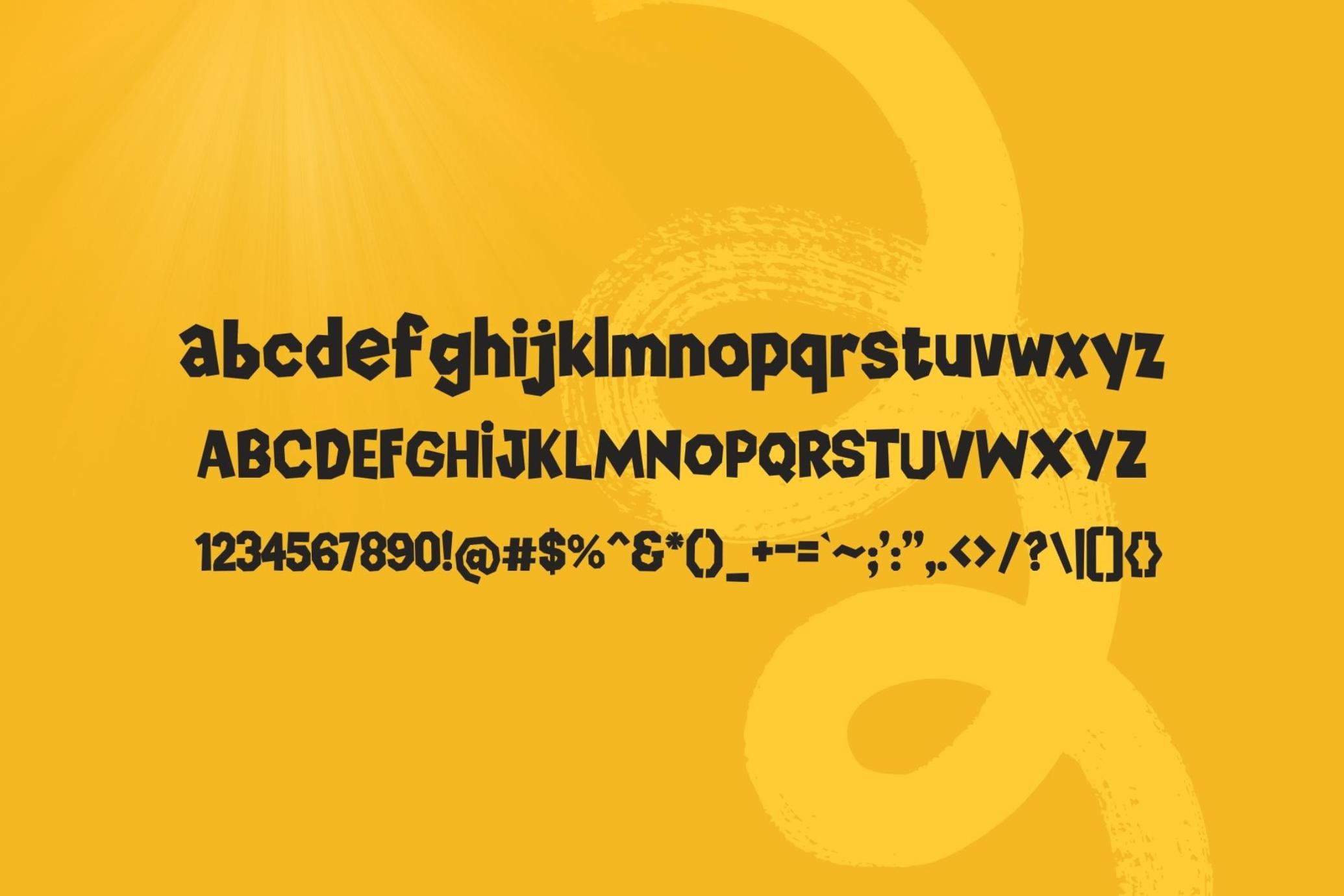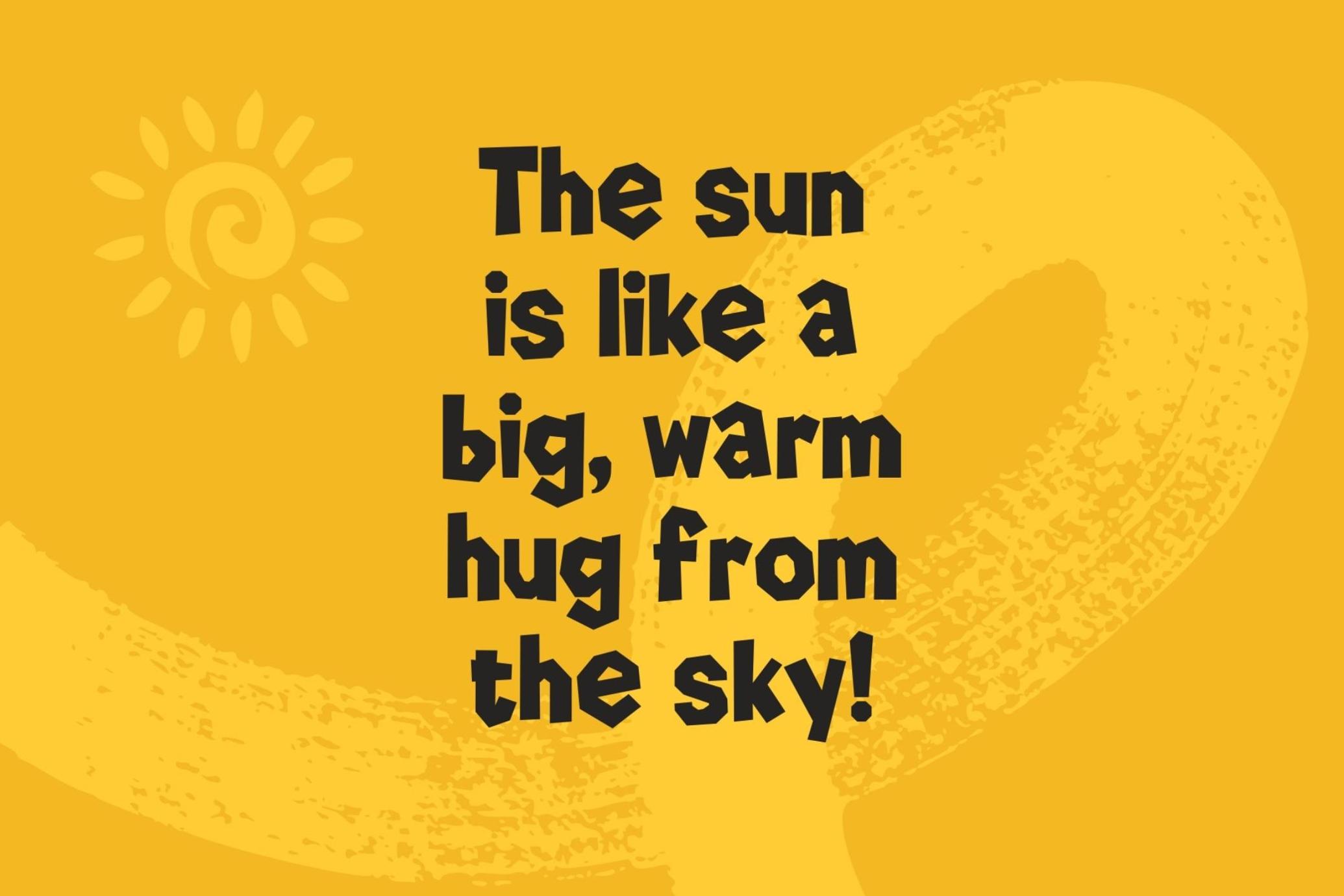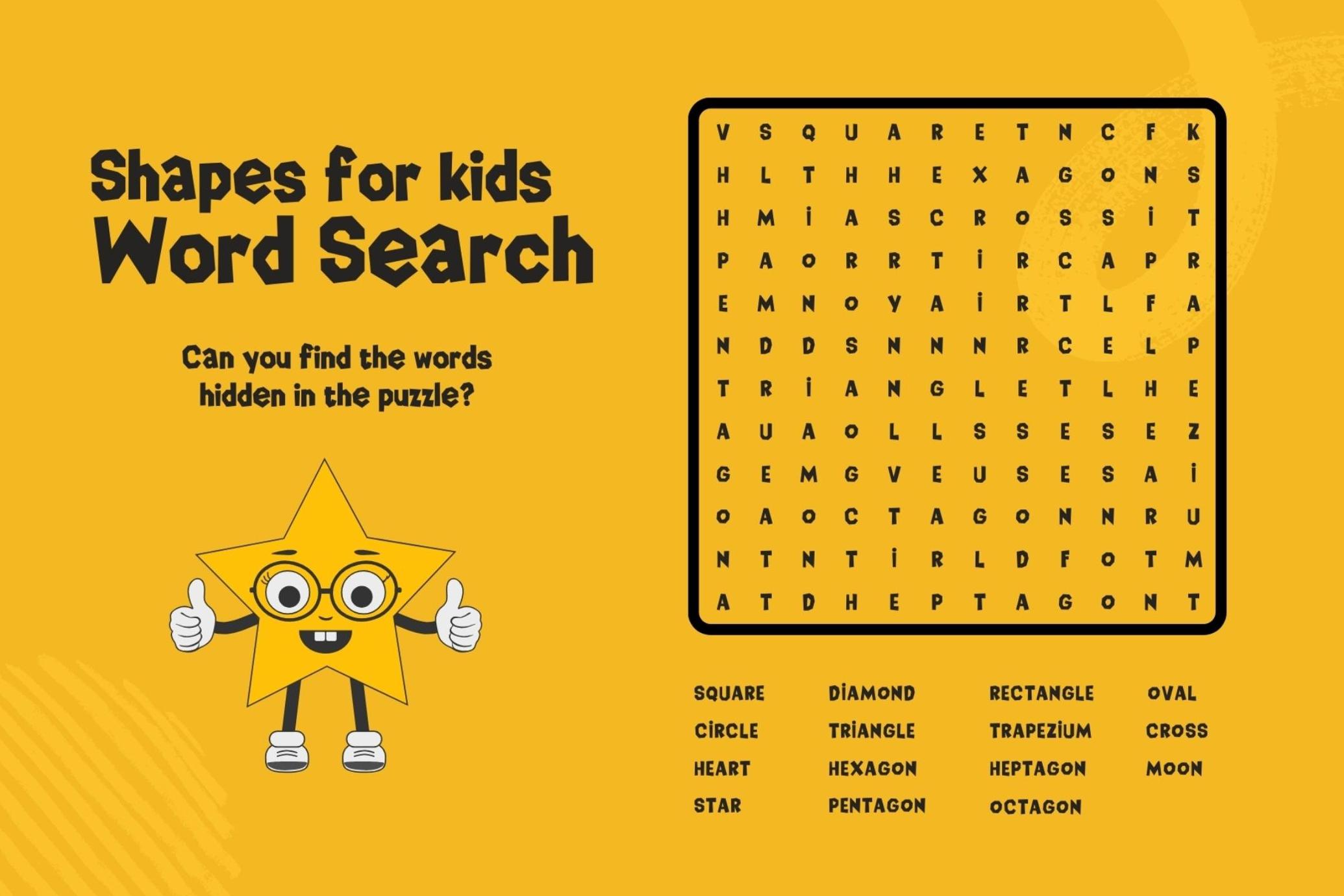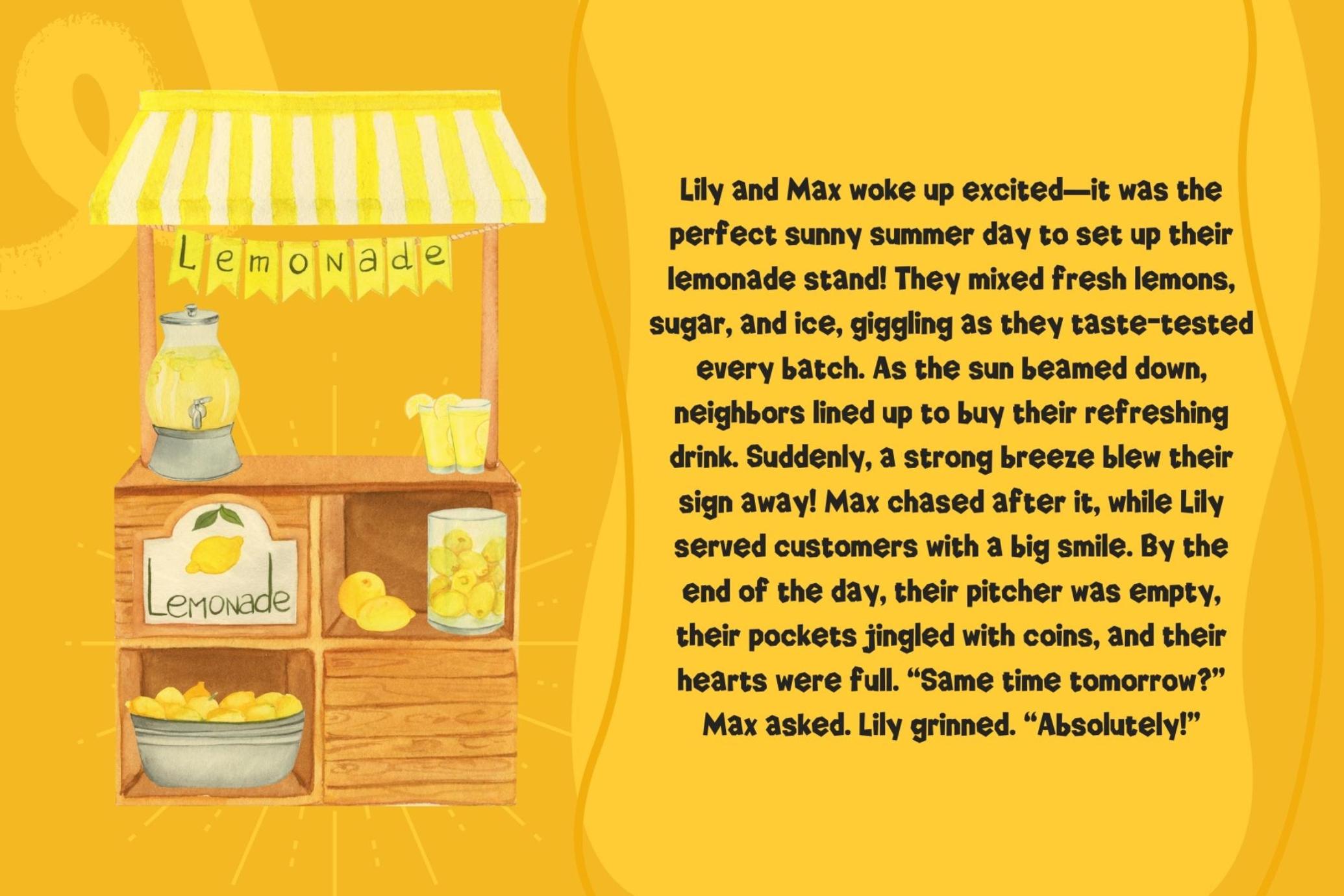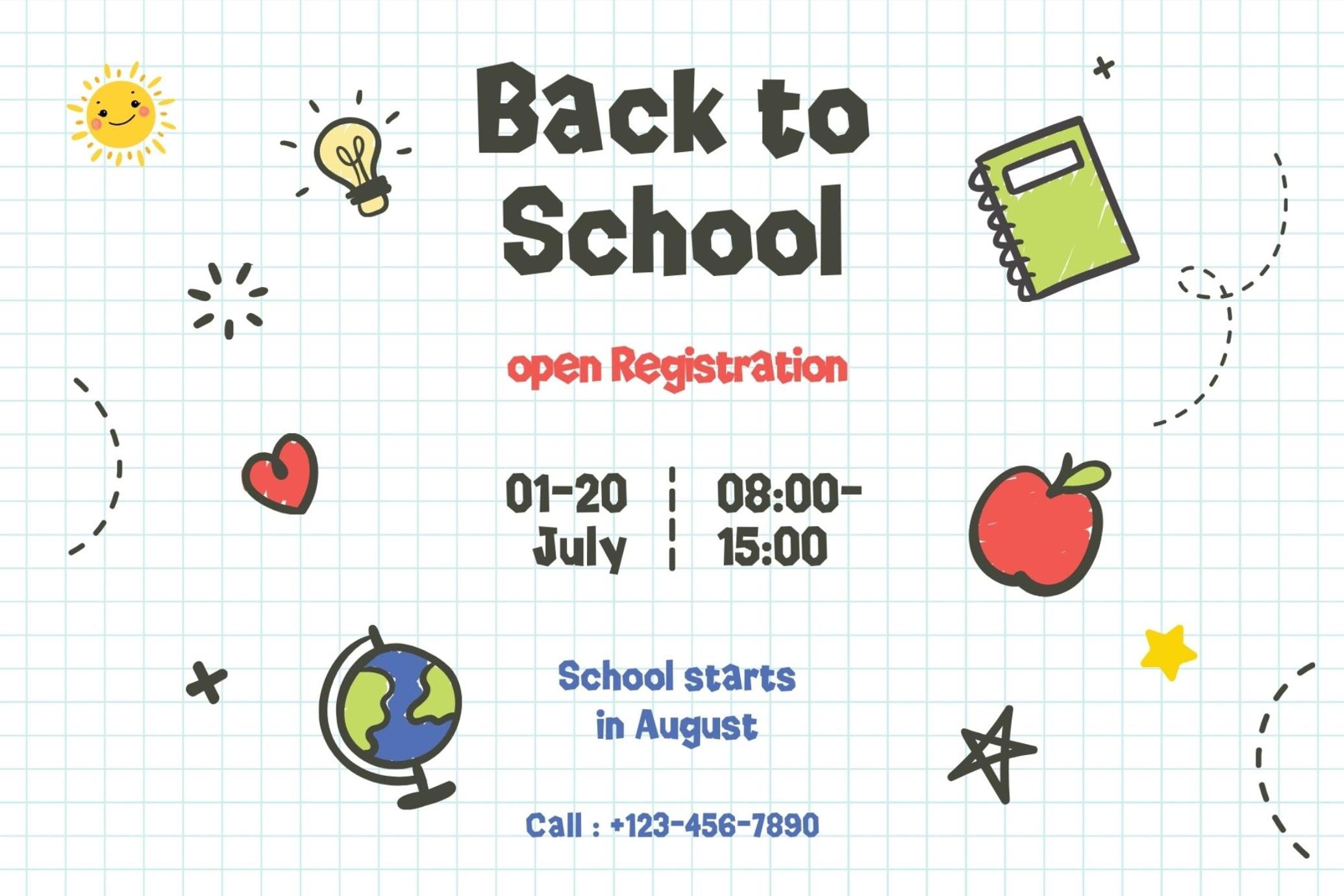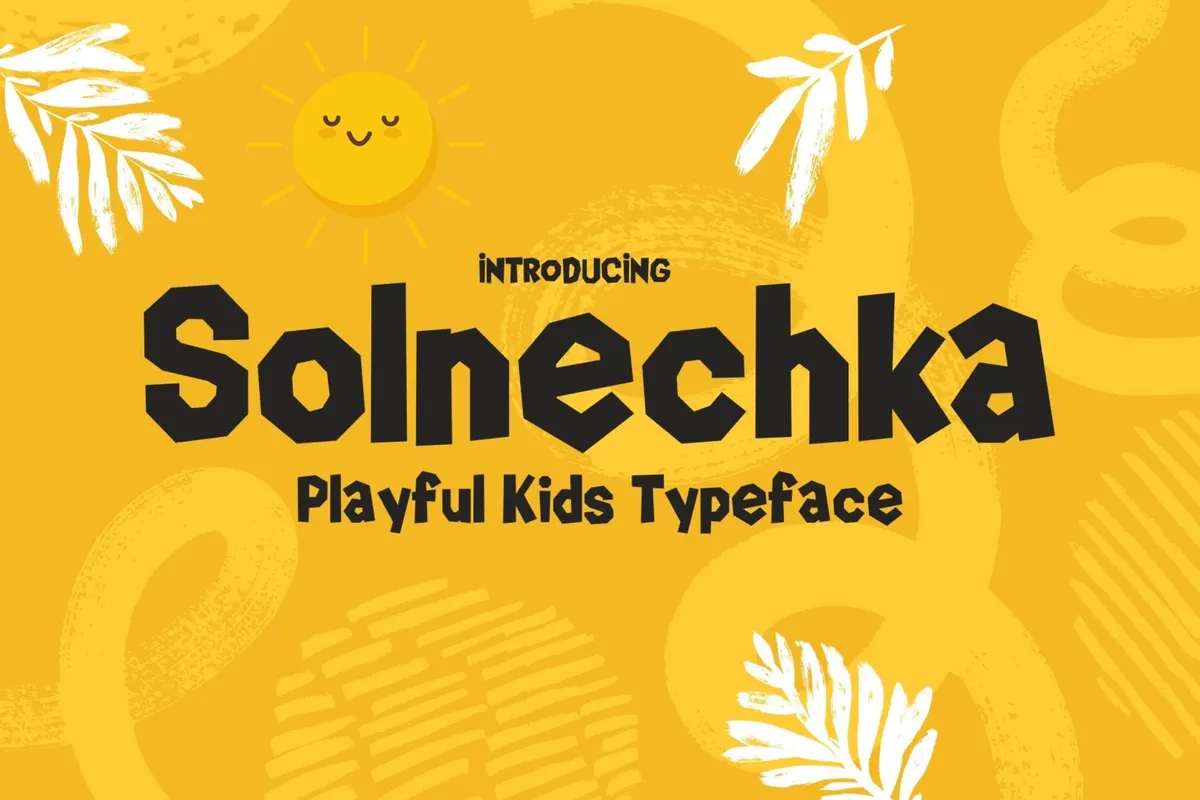
Solnechka – A Playful & Quirky Typeface for Kids
Meet Solnechka, the adorably cute and quirky typeface designed to bring joy and creativity to every project! With its playful personality and easy-to-read letters, this font is perfect for school projects, teacher worksheets, children’s books, and fun learning activities.
Whether you're designing classroom materials, crafting educational printables, or creating cheerful posters, Solnechka adds a touch of warmth and charm to every word. Its rounded, friendly shapes make reading effortless for little learners, while its lively character brings imagination to life.
Perfect for teachers, parents, and designers looking for a fun, engaging, and child-friendly font, Solnechka is ready to brighten up any project with its sunny and delightful vibe!